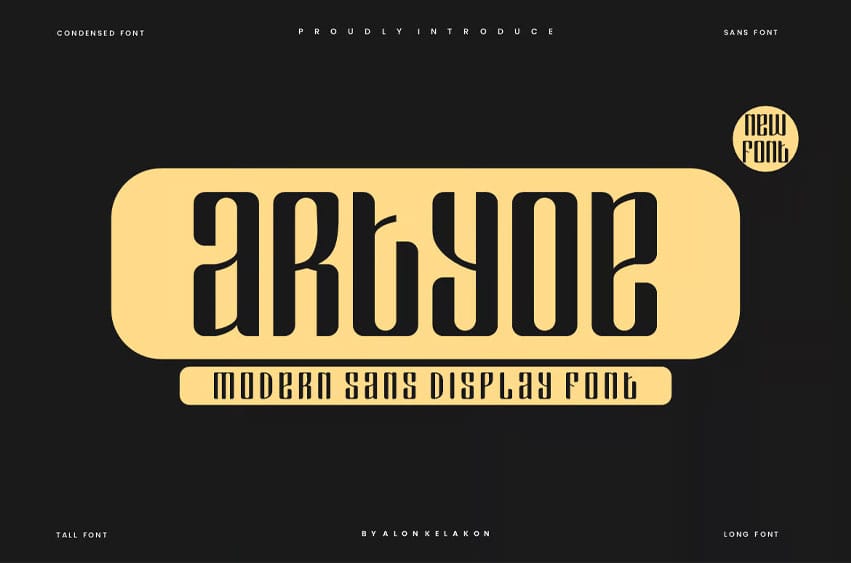
Artyoe Font is unique. Ready to use for your design like labeling, movie sceen, poster, movie title, gigs, album covers, logos, and much more.
Artyoe Font Preview
Artyoe Font is unique. Ready to use for your design like labeling, movie sceen, poster, movie title, gigs, album covers, logos, and much more.